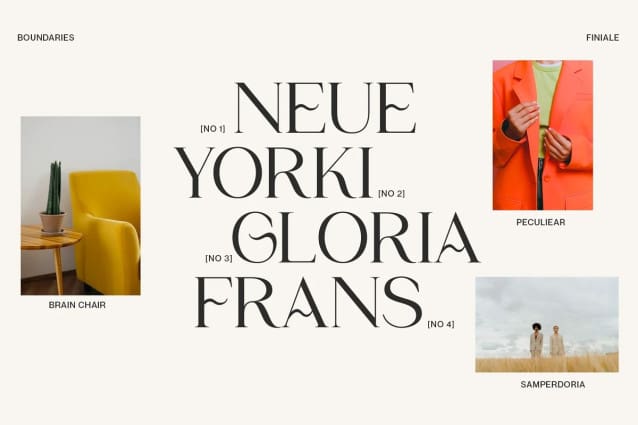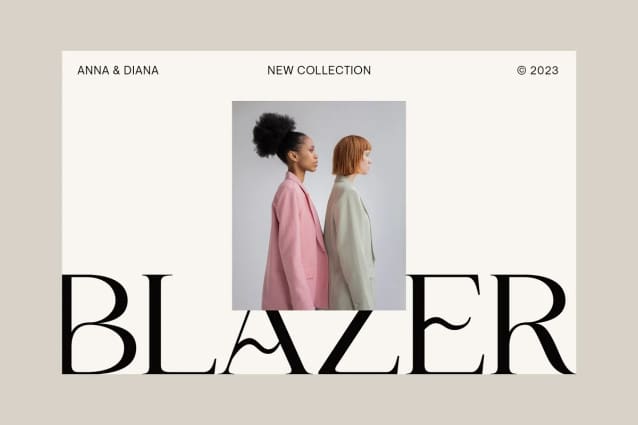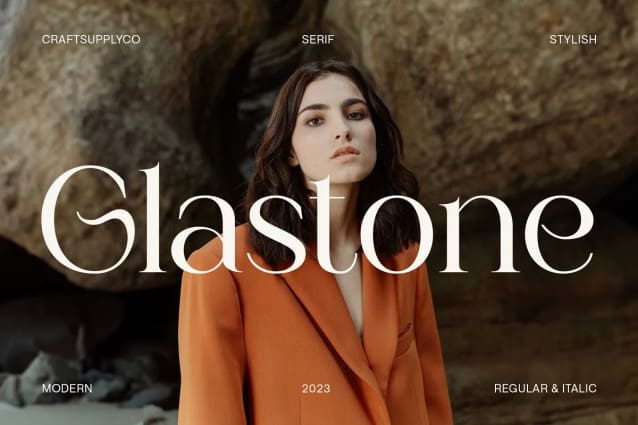
Glastone Serif Font
Glastone Serif Font, is a modern serif typeface that seamlessly blends beauty and a feminine touch, infusing a sense of class and contemporary sophistication. Its graceful lines and modern aesthetic make it the perfect choice for projects seeking a balance of elegance and modernity.
This typeface is ideal for greeting card, packaging, brand identity, poster, or any purpose to make your design project look eye catching and trendy. Feel free to play with this typeface!